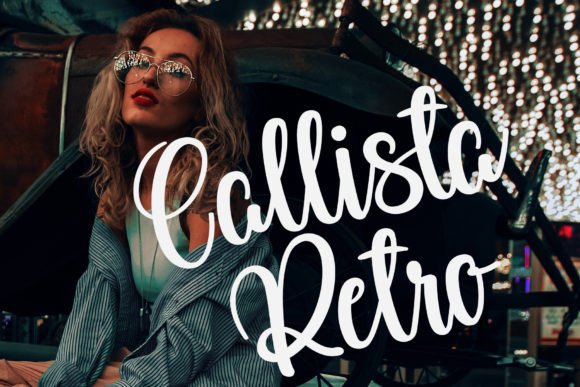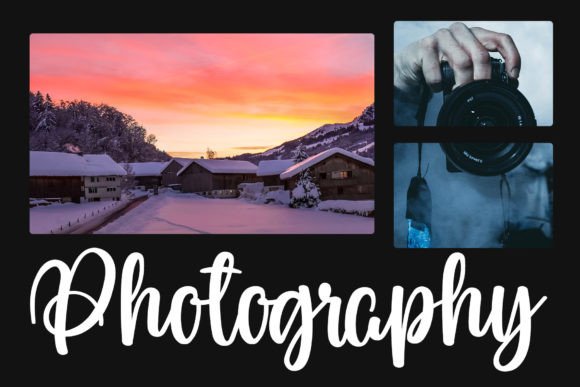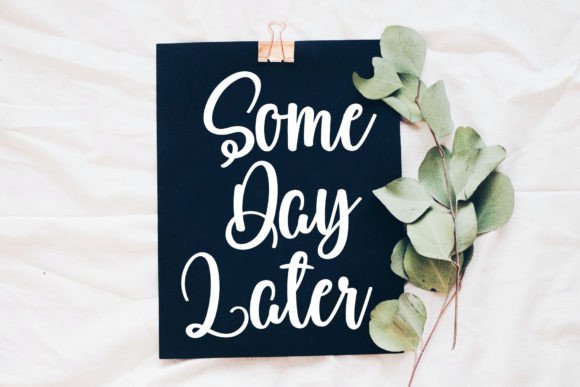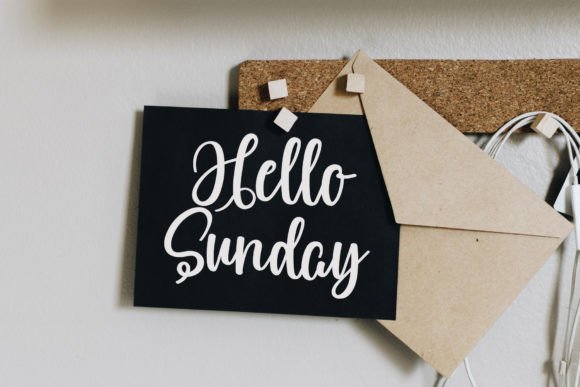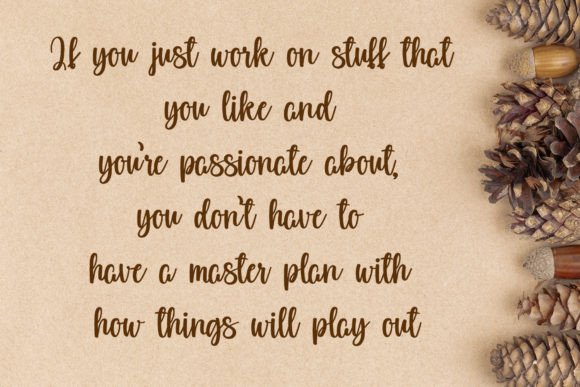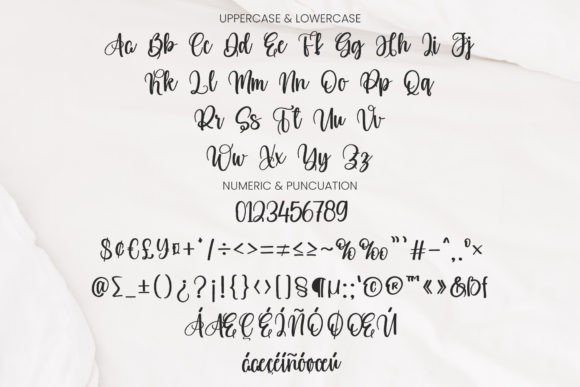
Introducing Chimney Font: Elevate Your Designs with Elegance
In the world of typography, a font can make or break a design. For those seeking a touch of elegance and sophistication, Chimney Font is an exquisite choice. This stylish and dainty script font is perfect for a variety of projects, from logos and branding to labels, photography, watermarks, and special events. If you’re looking to add a beautiful script taste to your creations, Chimney Font is an excellent option.
What Makes Chimney Font Stand Out?
Chimney Font boasts a unique blend of classic script elements with a modern twist. Its delicate strokes and elegant letterforms make it a versatile font suitable for numerous design applications. Here are some key features that set Chimney Font apart:
- Stylish and Dainty: Chimney Font’s slender lines and refined appearance give it a sophisticated look that’s hard to achieve with more traditional fonts.
- Script Elegance: The flowing script style of Chimney Font adds a touch of luxury and refinement to any design.
- Versatility: Whether you’re working on a logo, a branding project, or a special event, Chimney Font adapts seamlessly to various design needs.
Uses of Chimney Font
The versatility of Chimney Font makes it an excellent choice for a wide range of projects. Here are some popular uses for this beautiful script font:
- Logos and Branding: Create a lasting impression with a logo that exudes elegance and sophistication. Chimney Font is perfect for branding projects that require a touch of class.
- Labels and Packaging: Add a refined touch to your product labels and packaging with Chimney Font. It’s an excellent way to stand out in a crowded market.
- Photography and Watermarks: Use Chimney Font to add a subtle yet stylish watermark to your photos. It’s also great for creating elegant photo captions and descriptions.
- Special Events: Make your event invitations, programs, and decorations truly special with Chimney Font. Its elegant appearance is sure to impress your guests.
Why Choose Chimney Font?
With so many fonts available, why should you choose Chimney Font for your projects? Here are a few compelling reasons:
- Unique Style: Chimney Font offers a distinctive style that’s not easily found elsewhere. Its uniqueness ensures your designs stand out.
- Ease of Use: Despite its elegant appearance, Chimney Font is surprisingly easy to read and use in various design contexts.
- High Versatility: Chimney Font can be used for both digital and print projects, making it a versatile addition to your font collection.
Tips for Using Chimney Font Effectively
To get the most out of Chimney Font, consider the following tips:
- Pair with Complementary Fonts: Combine Chimney Font with simpler fonts to create visual interest and hierarchy in your designs.
- Adjust Font Sizes: Experiment with different font sizes to emphasize certain words or phrases and create a more dynamic design.
- Play with Colors: While Chimney Font looks great in black, don’t be afraid to experiment with colors that match your brand or design theme.
Chimney Font is a stylish and dainty script font that can elevate your designs to new heights. Its elegance, versatility, and unique style make it an excellent choice for various projects, from logos and branding to special events and photography. By incorporating Chimney Font into your design toolkit, you’ll be able to create stunning, professional-looking designs that leave a lasting impression.